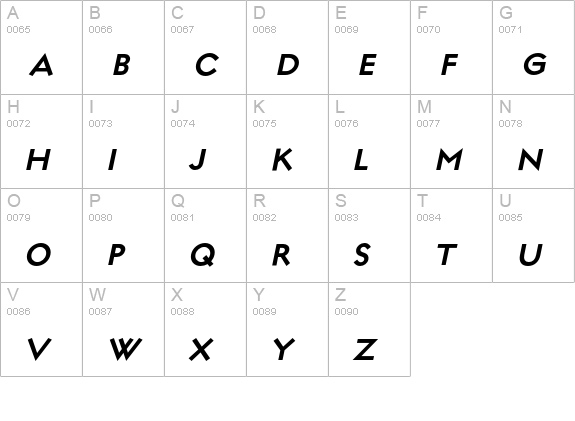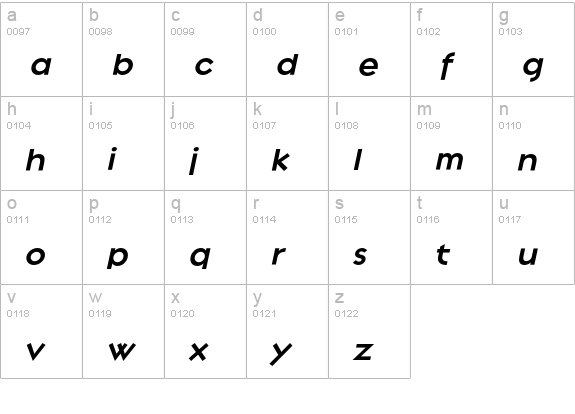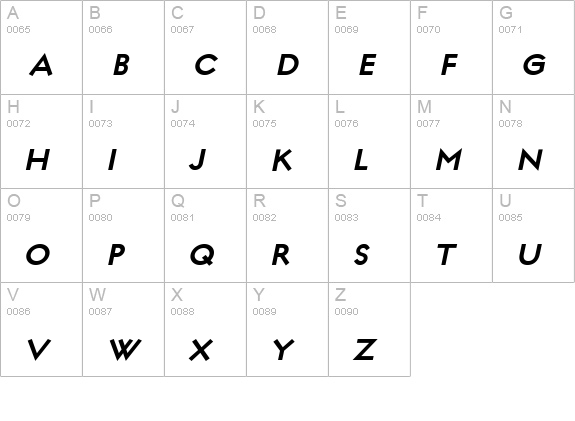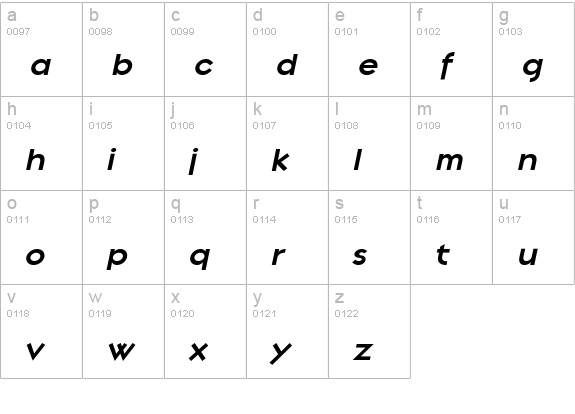
Regulator-BoldItalic Font Details
Regulator-BoldItalic is a captivating and dynamic font that exudes confidence and sophistication. With its bold and italic design, it adds a touch of elegance and modernity to any project. The slanted and weighty characters create a strong visual impact, making it perfect for headlines, titles, and branding materials. This font showcases a unique blend of classical and contemporary aesthetics, making it suitable for a wide range of design applications. Whether you're designing a logo for a luxury brand, creating eye-catching posters, or developing a sleek website, Regulator-BoldItalic will elevate your work to new heights. Its versatility extends to various mediums, from print to digital, ensuring that your message is communicated accurately and stylishly. The precise curves and sharp angles of each letter are meticulously crafted, resulting in a visually striking and harmonious typeface. What sets Regulator-BoldItalic apart is that it is not only visually appealing but also freely available to download at FontsMarket.com. This means that you can enhance your creative projects without any additional cost. FontsMarket.com offers a vast collection of high-quality fonts, and Regulator-BoldItalic is a standout choice for those seeking a distinctive and contemporary typeface. With its bold and italic design, Regulator-BoldItalic is an ideal choice for designers, artists, and creative professionals who want to make a lasting impression. Its unique blend of classic elegance and modern flair will captivate audiences and elevate your design projects to new levels of sophistication. Download Regulator-BoldItalic today from FontsMarket.com and unlock a world of creative possibilities.